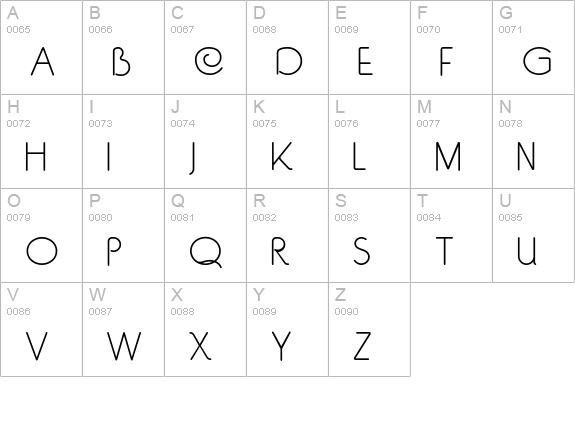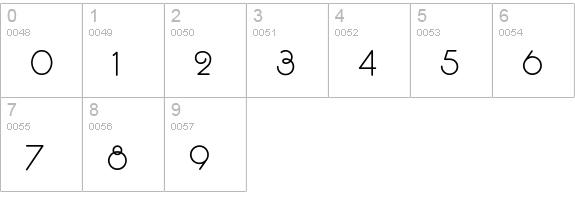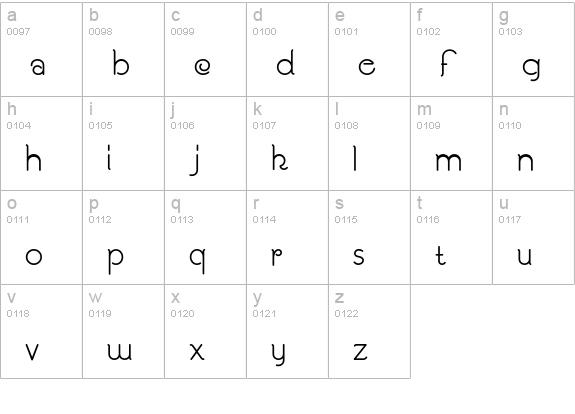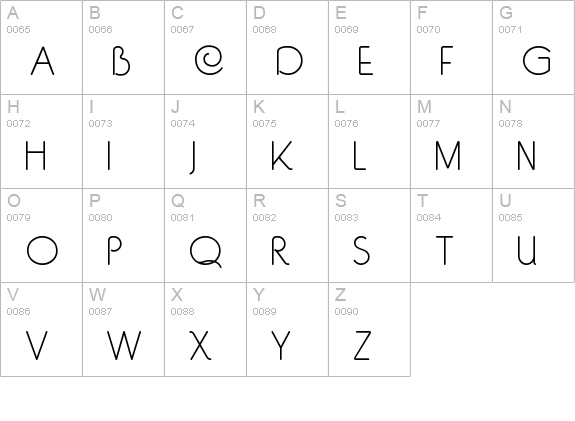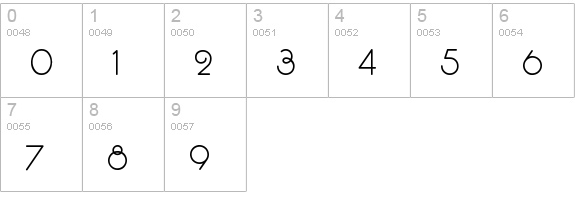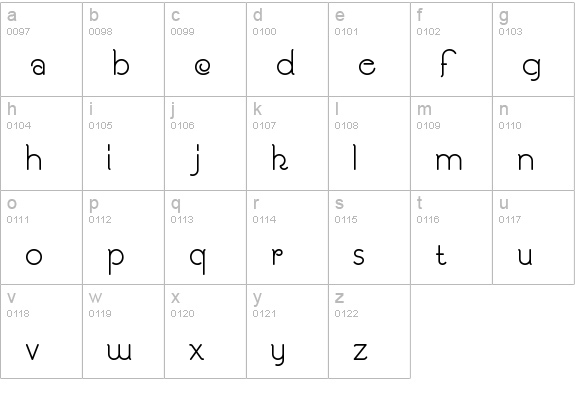
SouciSans is a captivating and versatile font that effortlessly combines modernity with elegance. With its clean lines and sleek curves, this font exudes a sense of sophistication that is perfect for a wide range of design projects. Whether you are creating a logo, designing a website, or crafting a professional document, SouciSans will undoubtedly elevate your work to new heights. But what truly sets SouciSans apart is its accessibility. This amazing font is not only visually stunning, but it is also free to use. Yes, you read that right - SouciSans is freely available to download at FontsMarket.com. This means that you can effortlessly add this incredible font to your collection without spending a dime. With its extensive character set and multiple font weights, SouciSans offers endless possibilities for creative expression. From bold headlines to elegant body text, this font can adapt to any design concept with ease. Its legibility and clarity make it suitable for both print and digital media, ensuring that your message is effectively communicated across various platforms. Download SouciSans today and experience the freedom of creative expression. Let this font inspire your imagination and bring your design projects to life. With its stunning aesthetics and its availability at FontsMarket.com, SouciSans is a font that is truly a gift to all designers and creatives. Embrace the power of this font and watch your designs soar to new heights of excellence.